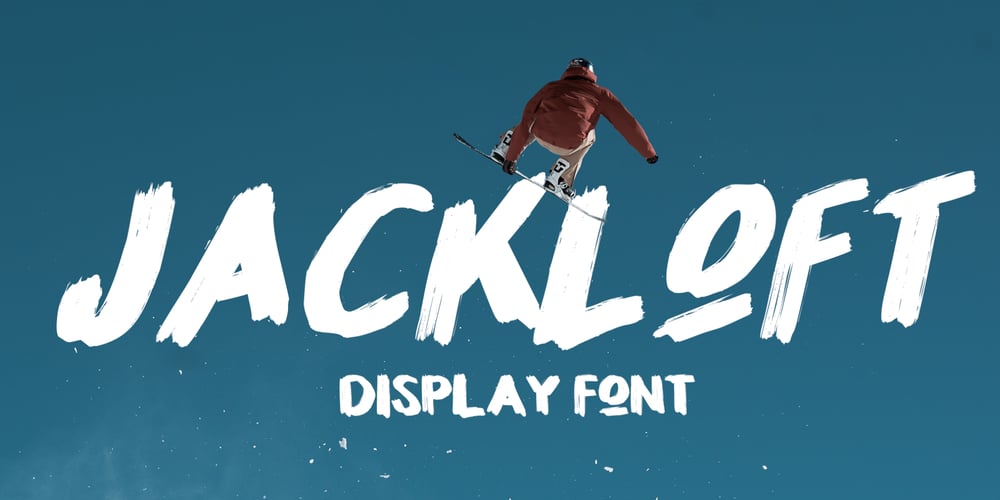
Jackloft
Jackloft font
Jackloft Font Family was designed by Mohamad Farhan Ramadhan and published by Mofr24. Jackloft contains 4 styles and family package options. Introducing Jackloft, the ultimate display font for all your design needs! With its energetic and bold brush textured style, Jackloft is perfect for advertising, headlines, posters, thumbnails, and much more. What makes Jackloft unique is its ability to stand out in any design while still maintaining legibility.This font includes a full set of uppercase and lowercase letters, numbers, and punctuation marks. It pairs well with sans-serif fonts for a modern look or can be paired with other brush script fonts for a cohesive design.The design concept behind Jackloft was to create a font that could convey a sense of energy and excitement while still being readable. The brush textured style gives the font a handcrafted feel, making it perfect for designs that require a personal touch.Jackloft is not a revival or based on a historical design. Instead, it was created to fill a gap in the market for a display font that was both bold and legible. So, whether you’re designing a poster or creating a social media graphic, Jackloft has got you covered!